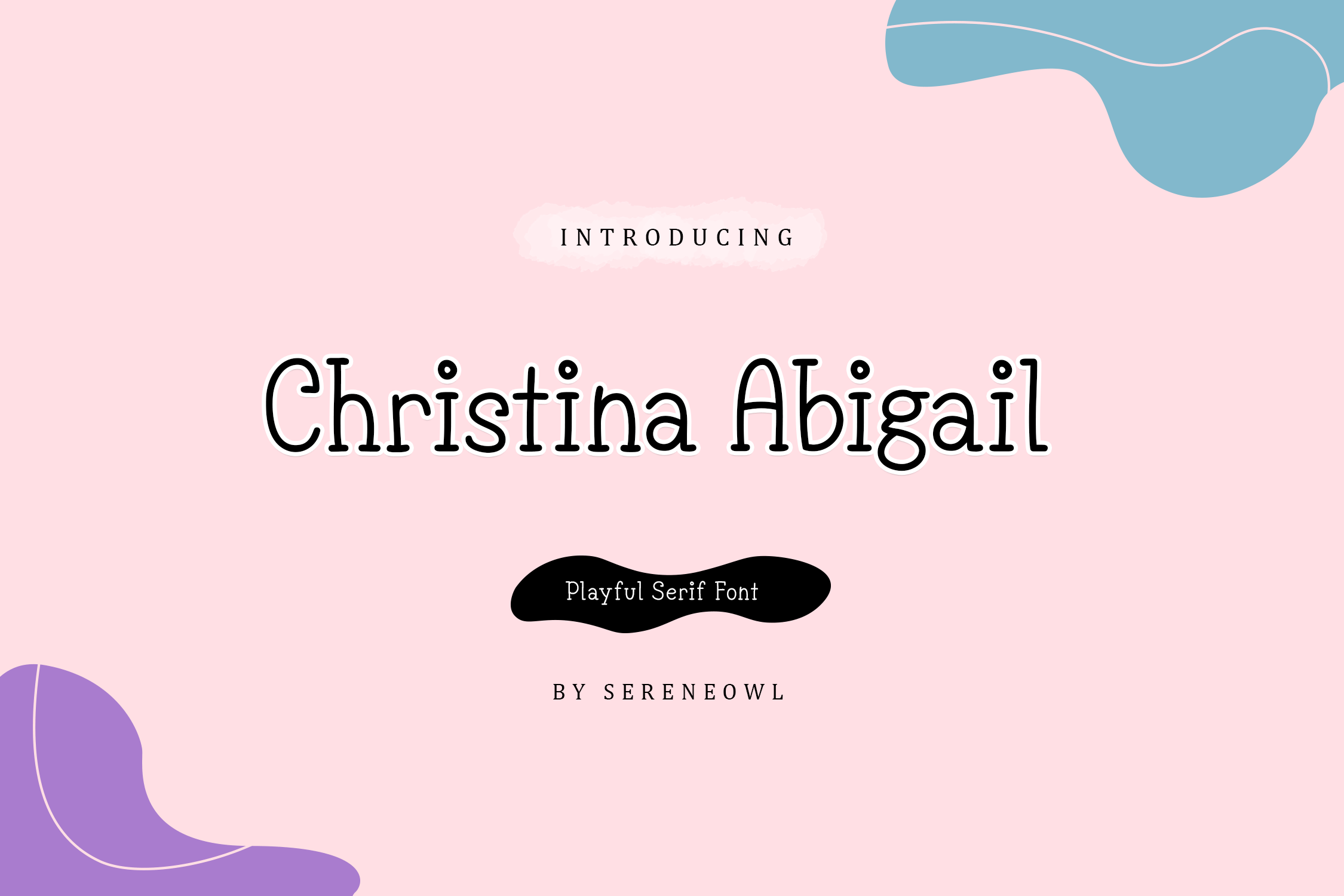
Christina Abigail -Casual Serif Font
Christina Abigail is a simple and casual serif font with an undeniably clean feel. This font will look particularly adept when used in logos, branding, packaging design, and much more.
The font includes full set of uppercase, lowercase, multilingual chars/international letters, numerals, currency signs, punctuation, symbol, and others.